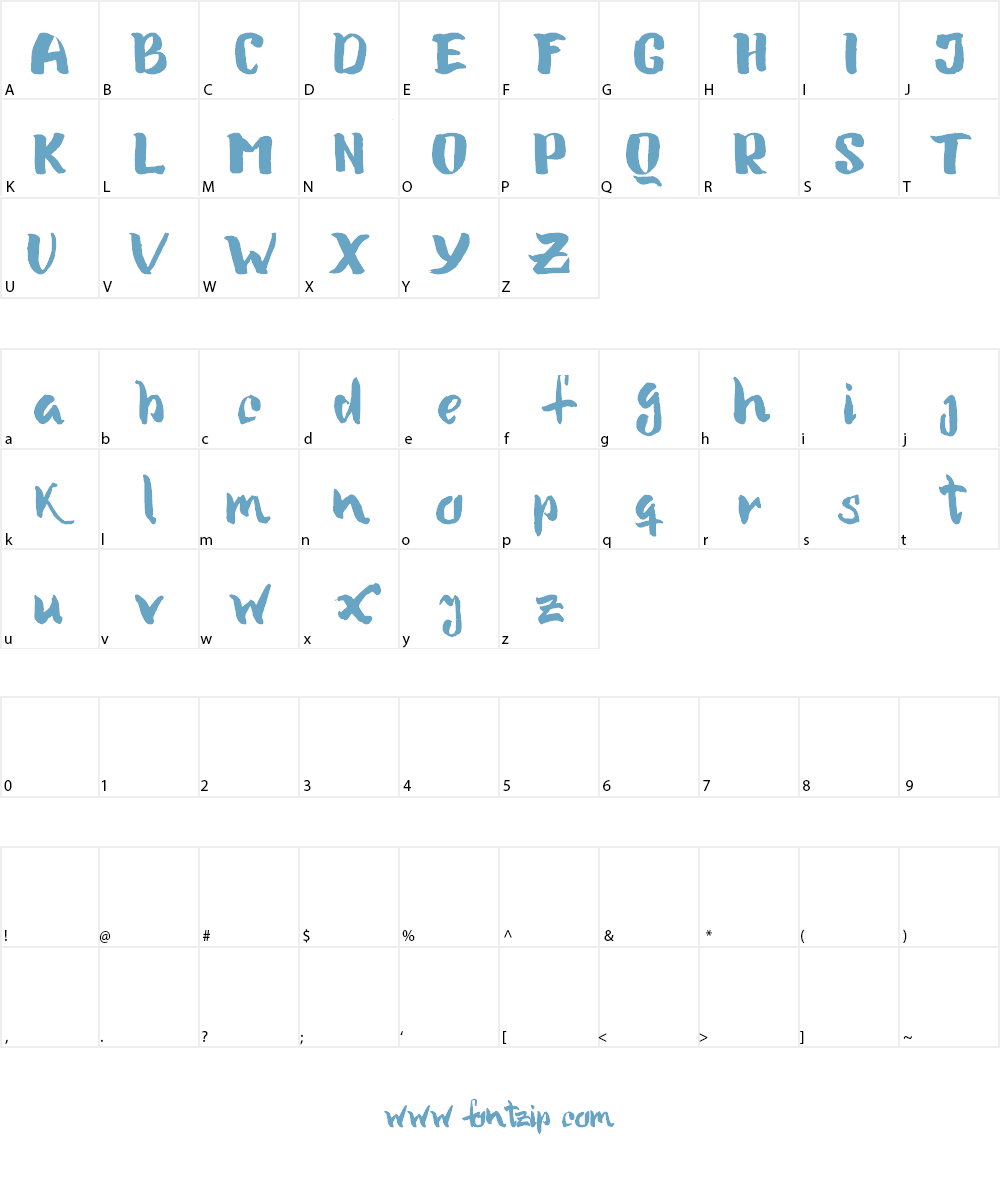
I want to show you my FIRST TYPE, it's called ICHI SCRIPT, in japanese ichi is one. Inspirated by japanese strokes, that japanese use in the calligraphy.